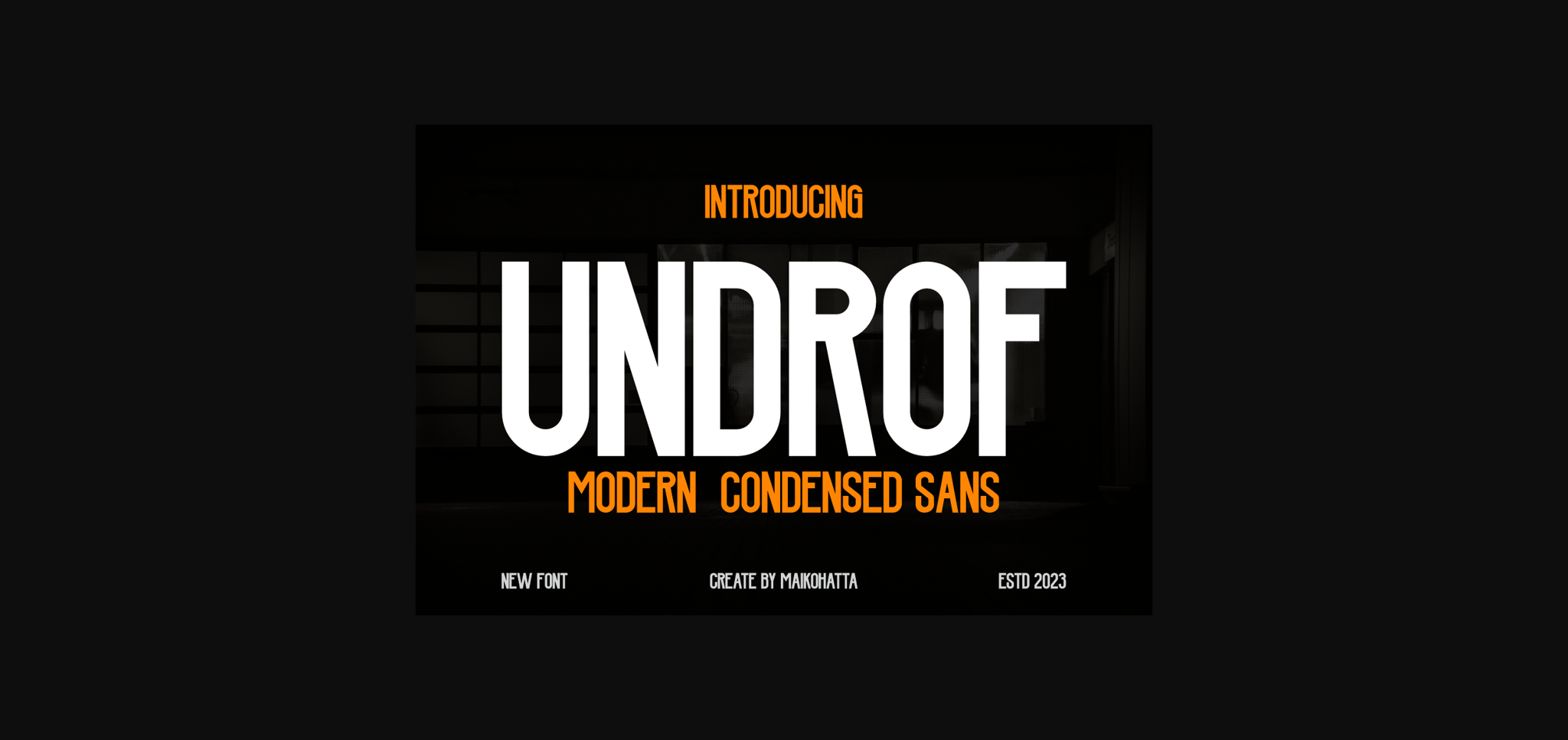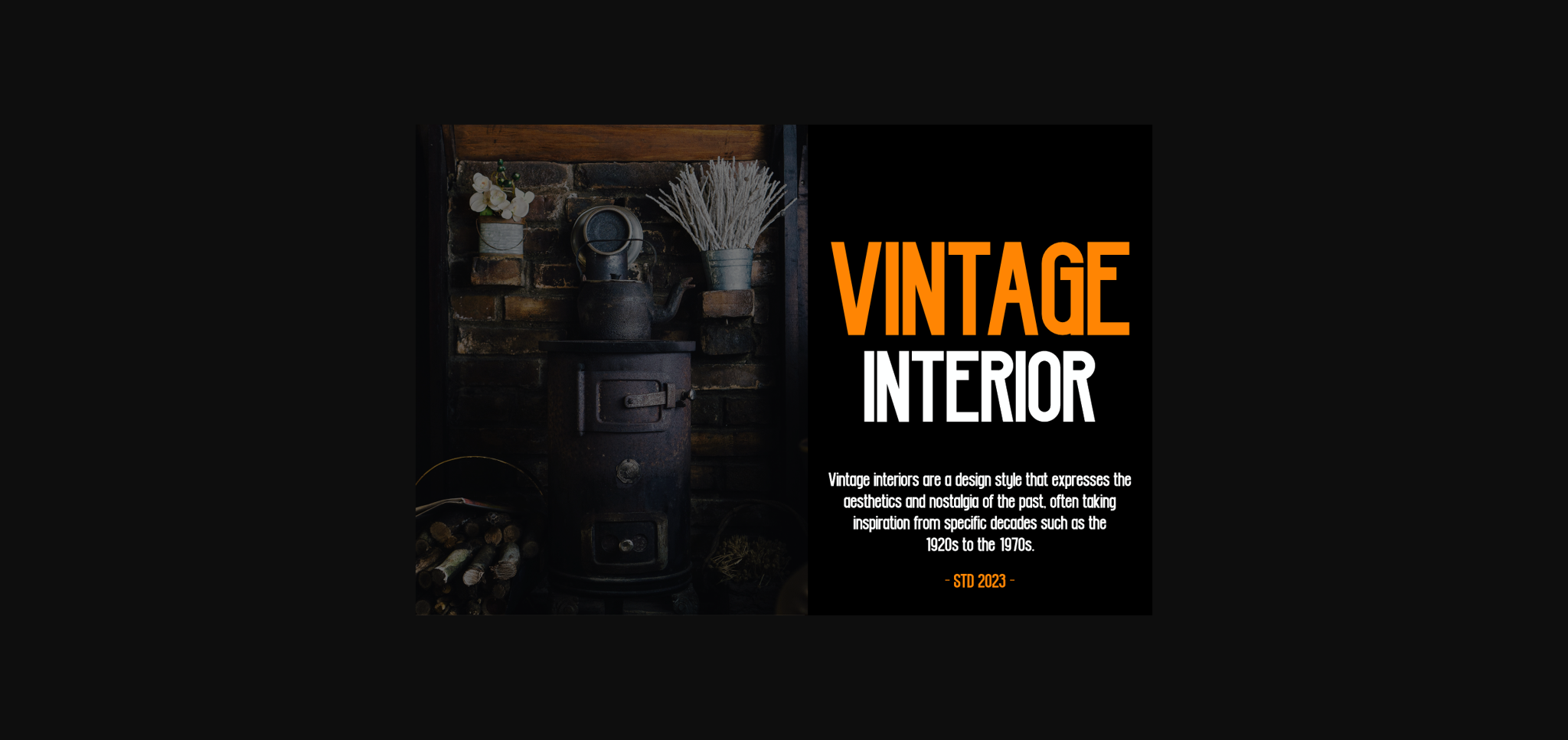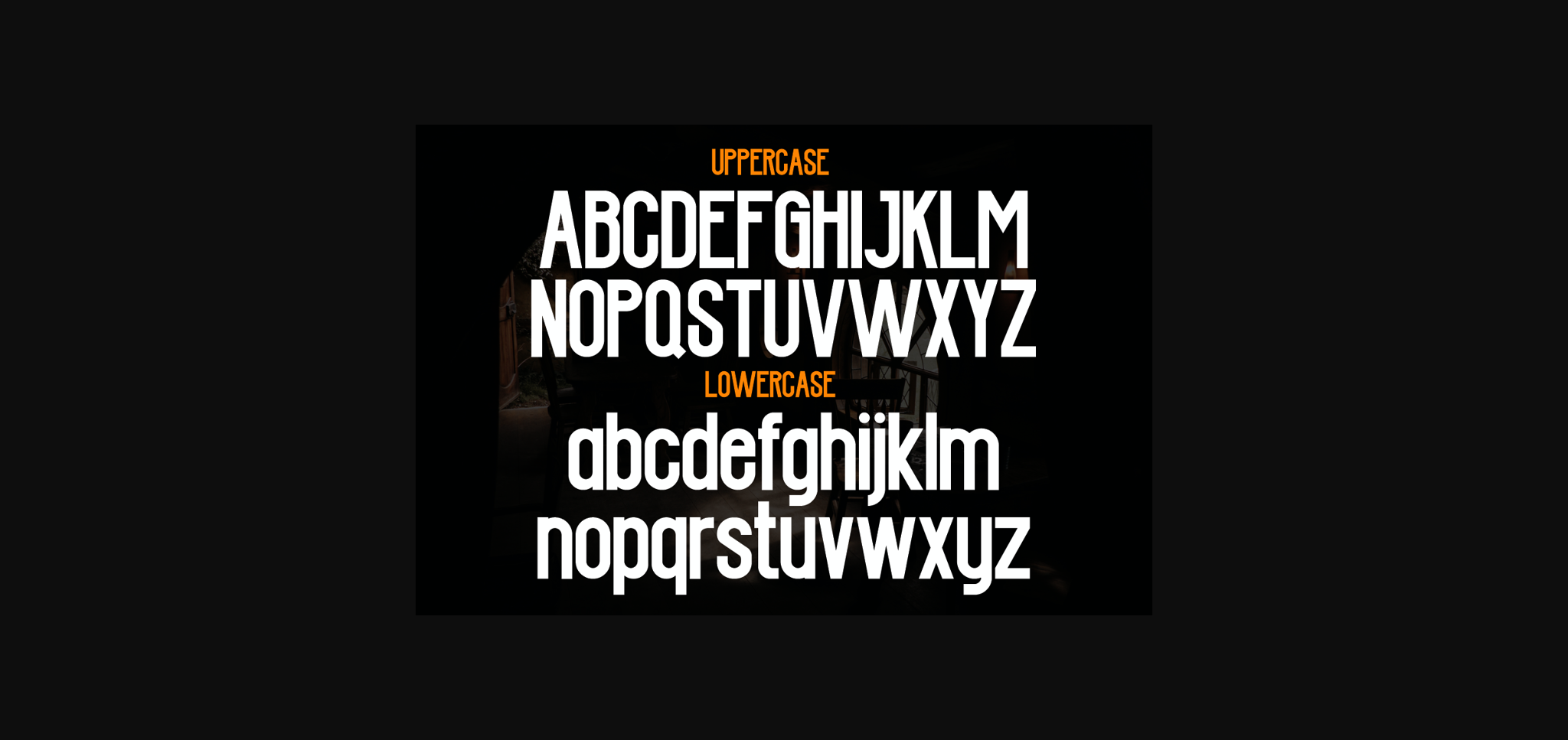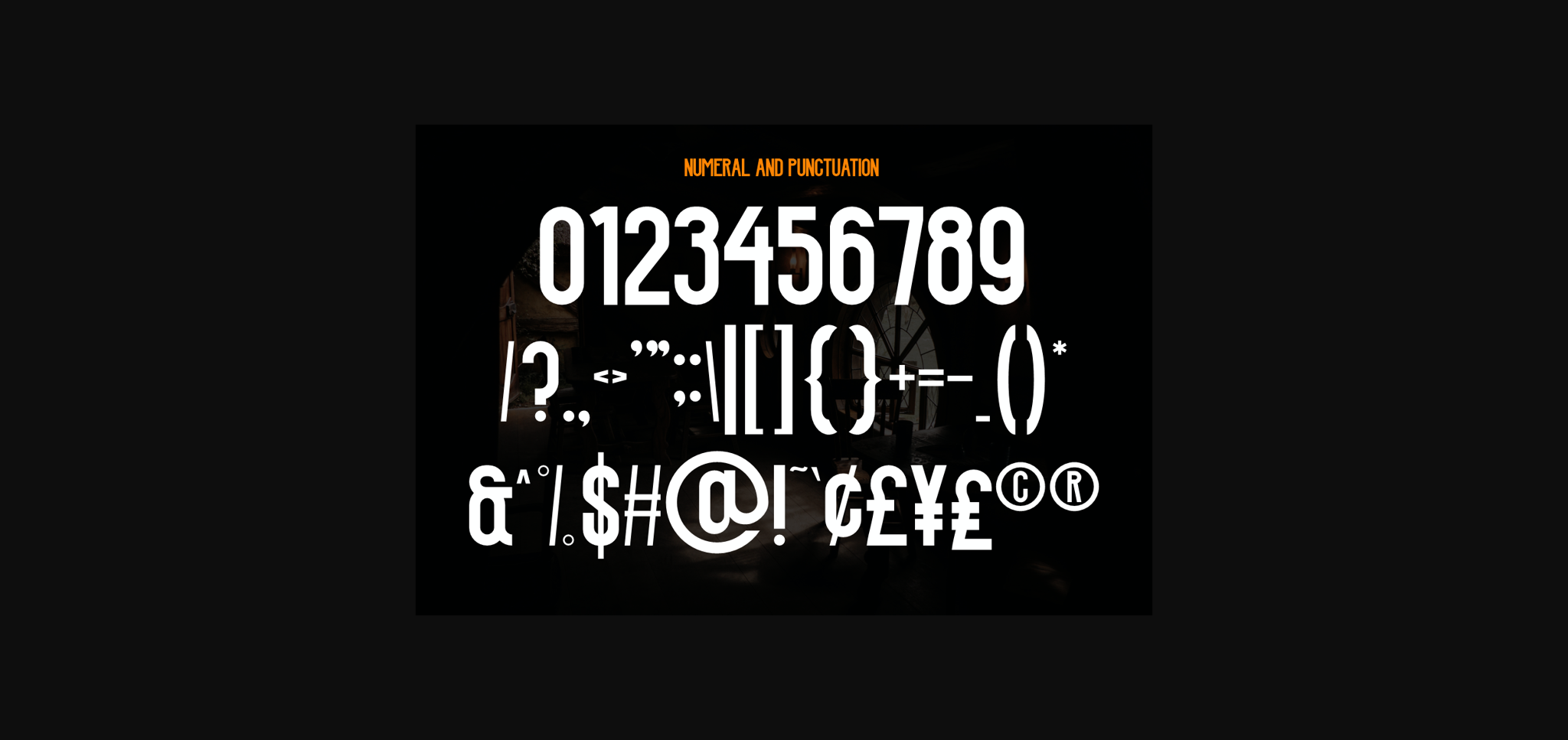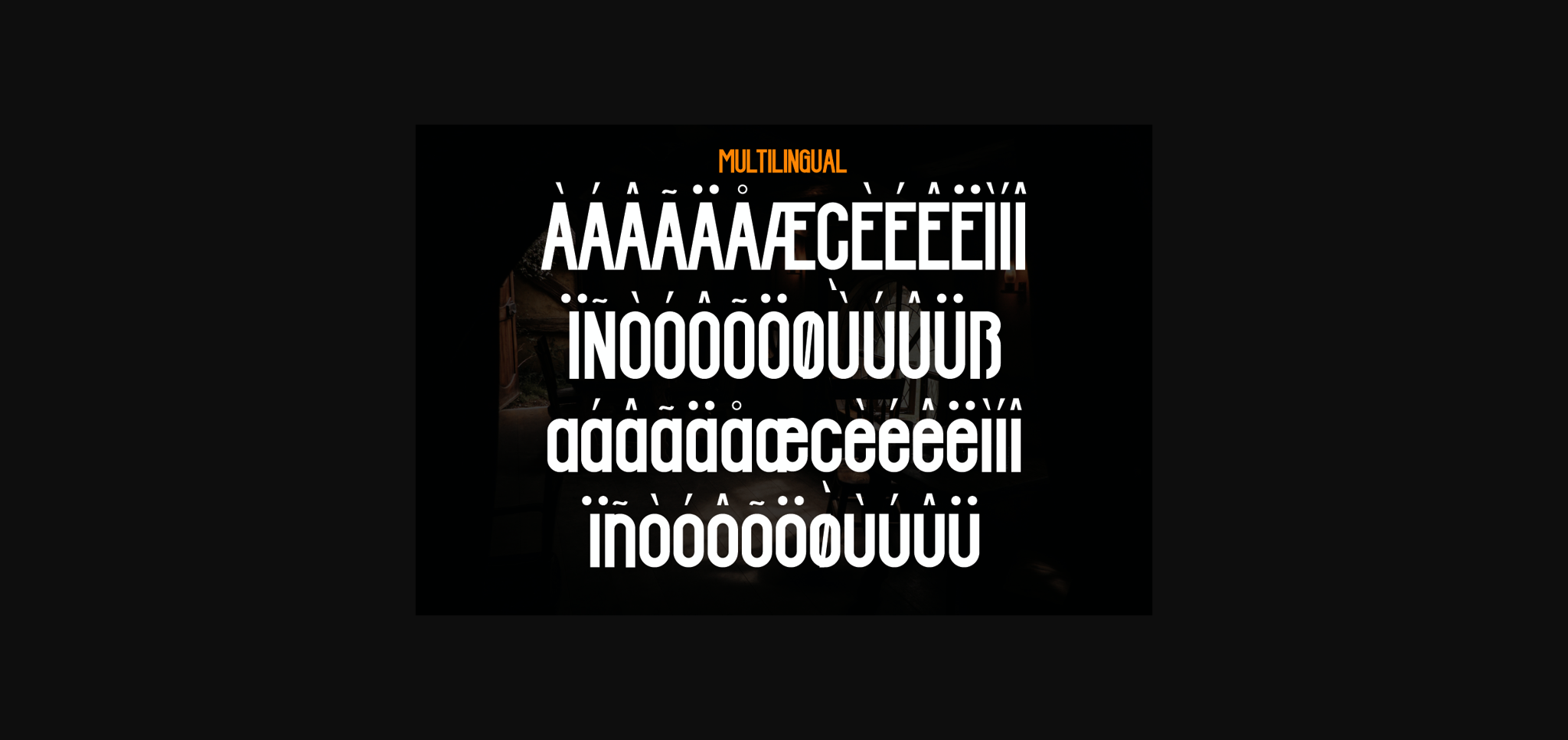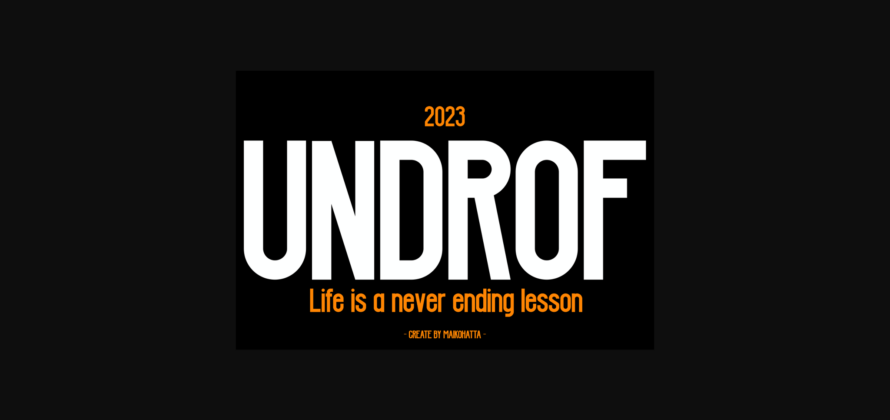
Undrof Font
About Undrof Font
Undrof is a type of font that is characterized by narrower or slimmer letterforms compared to regular or wide fonts. Condensed fonts are often used in various graphic designs, print materials, and other media because they have distinct advantages and unique characteristics.